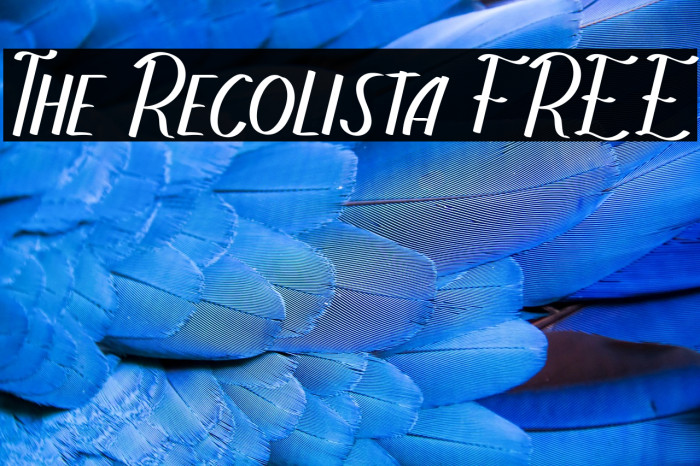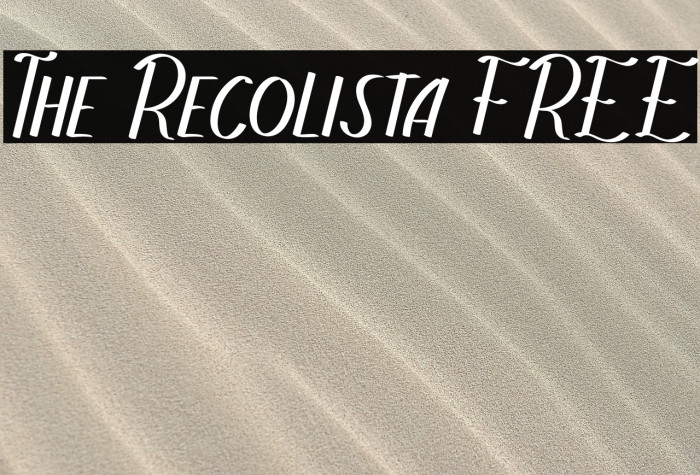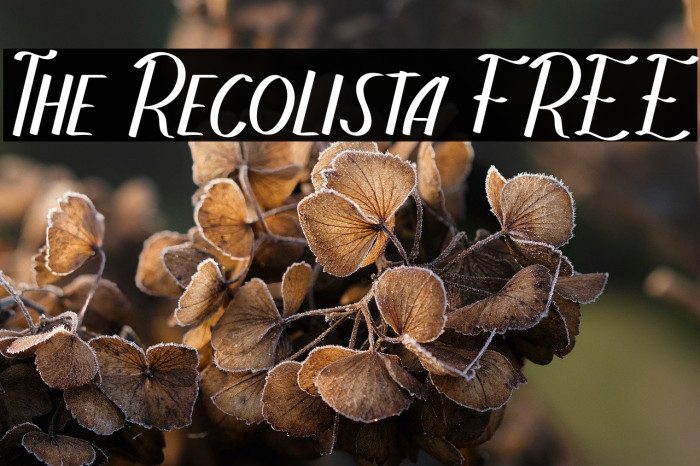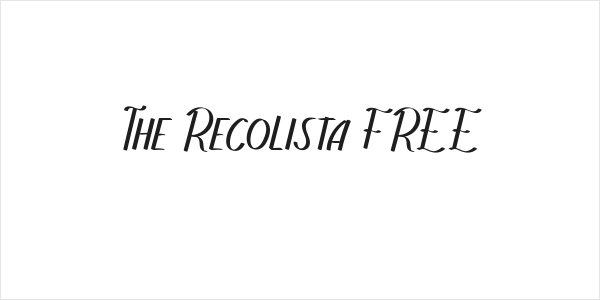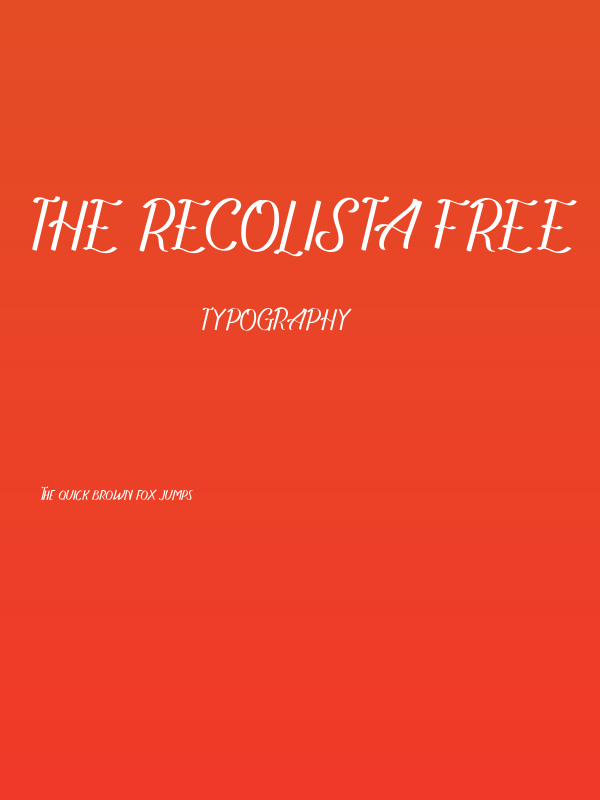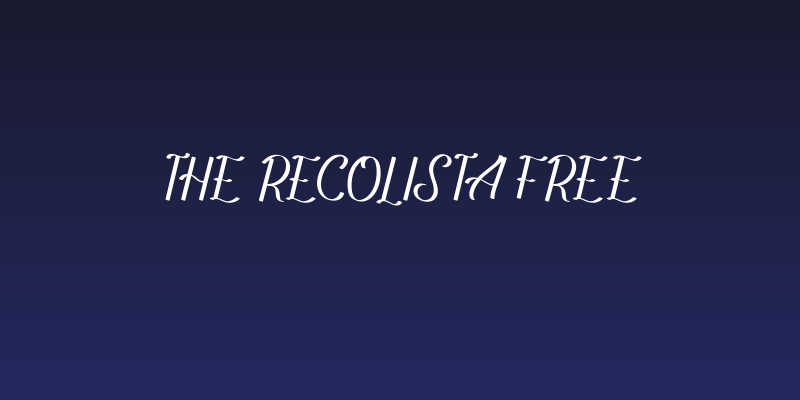
The Recolista FREE Font
The Recolista FREE Description
This font features a dynamic and elegant script style, characterized by its fluid and flowing letterforms. The uppercase letters exhibit a graceful, cursive design with a slight slant, adding a sense of movement and sophistication. The lowercase letters maintain a consistent style, complementing the uppercase with their smooth curves and connected strokes. The overall appearance is both stylish and legible, making it suitable for various creative applications. The font's unique flair is enhanced by its moderate contrast in stroke thickness, providing a balanced and visually appealing look.
| Proposed Projects | Ideal for wedding invitations, branding, greeting cards, and elegant packaging designs. |